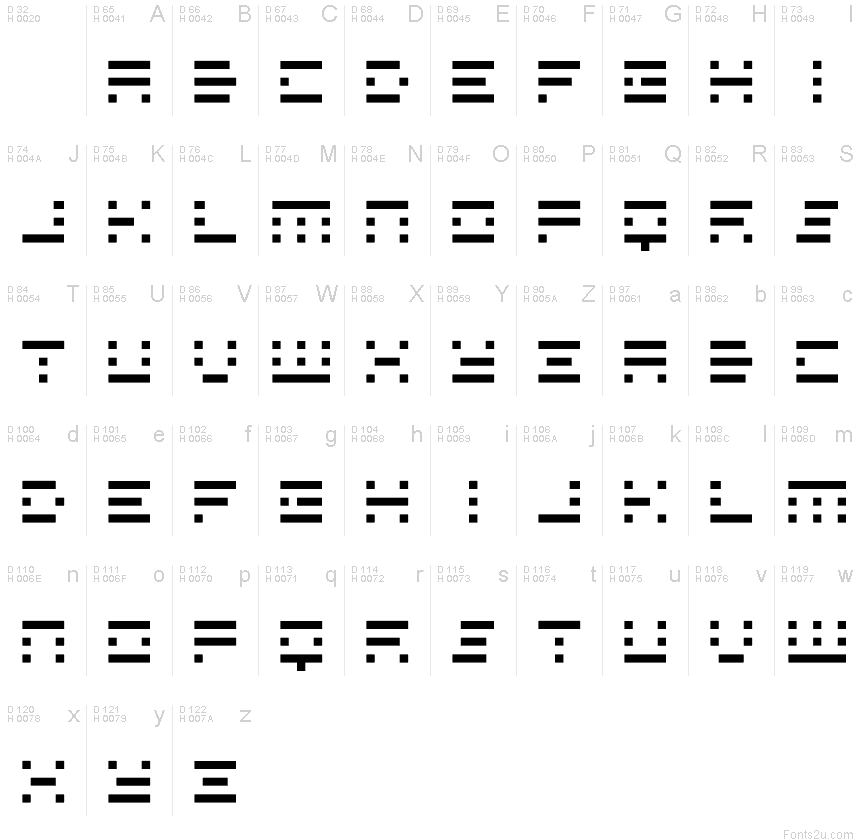
Assys
Assys font is a free pixel bitmap font. Its letters are cut into thick horizontal bands with tiny square breaks, so every word feels like it’s glowing off an old CRT-crisp, mechanical, and slightly glitched in a way that stays clean rather than chaotic.
Using Assys works beautifully for retro game logos, arcade posters, synthwave flyers, stream overlays, app splash screens, merch tags, and punchy social graphics. Keep Assys at larger sizes so the striped rhythm stays sharp, and pair this free font with a plain sans serif for captions, menus, or any supporting text.